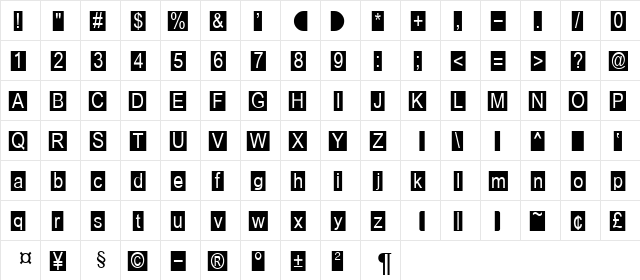
FIBoxBB Normal Font Preview
FIBoxBB Normal
FIBoxBB Normal Font Details
Design Context for FIBoxBB Typeface
FIBoxBB is a composed and adaptable typeface that performs quietly and consistently across a wide range of design contexts.